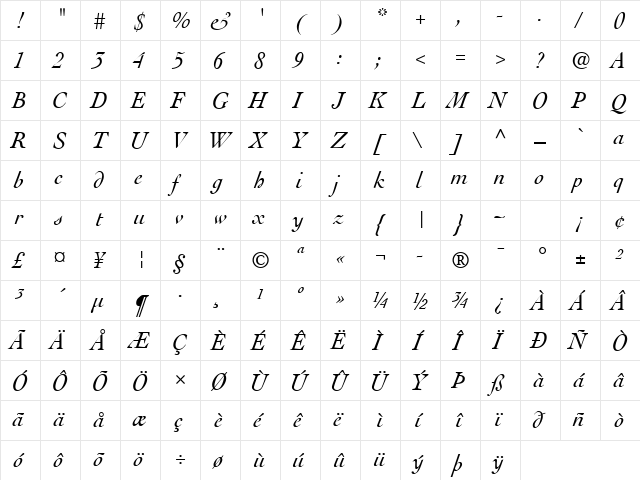
Cochin Italic Font Preview
Cochin Italic
Design Context for Cochin Typeface
Cochin takes a measured approach to typography — its balanced proportions and neutral character make it a reliable workhorse for both digital and print work. Its italic angle brings a sense of urgency and motion to the letterforms.
Pro Tip: Use Cochin for emphasis, pull quotes, and subheadings where its slanted energy can add rhythm to the layout.